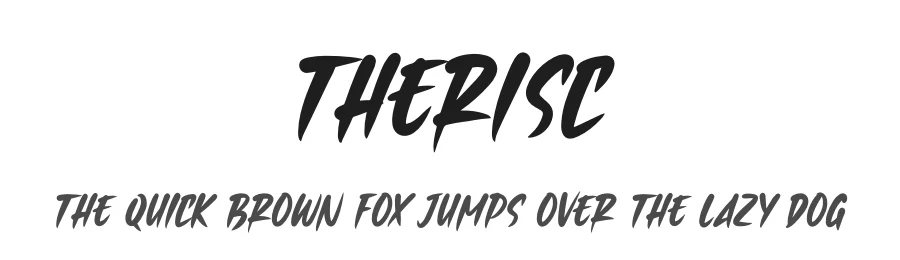
About Balistroke Font
| Designer | Cundrawan |
Balistroke Font is a script font that shines as a display or heading face. Pair it with a clean sans-serif or serif font for body text β the contrast creates a clear hierarchy while the two styles stay balanced and easy to read.
Balistroke Font